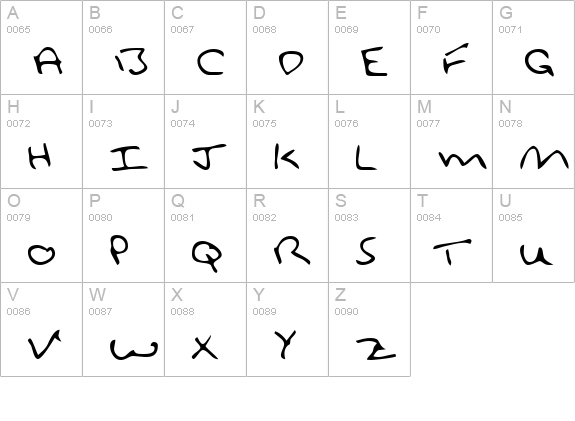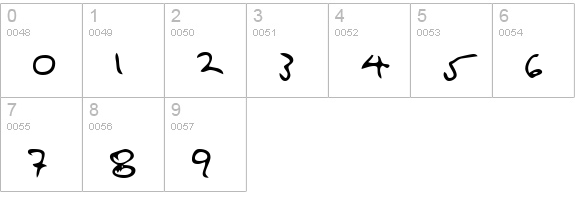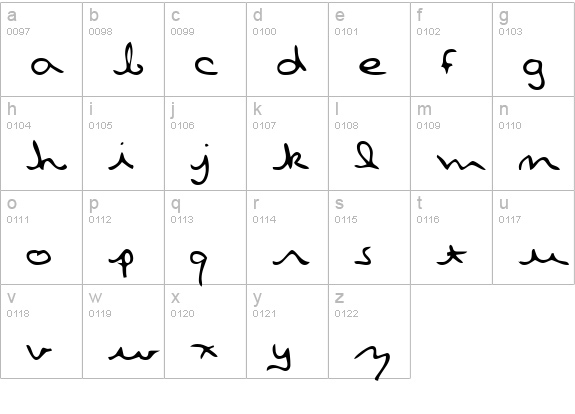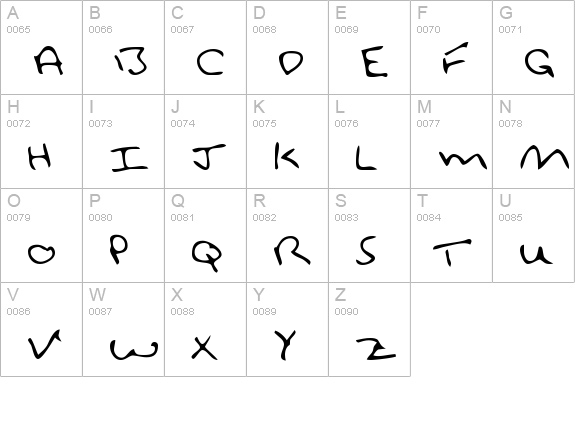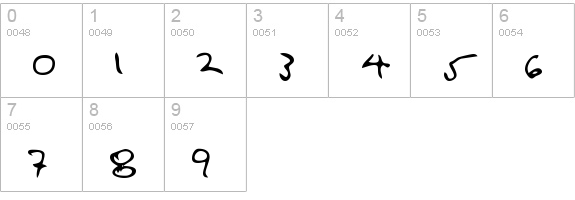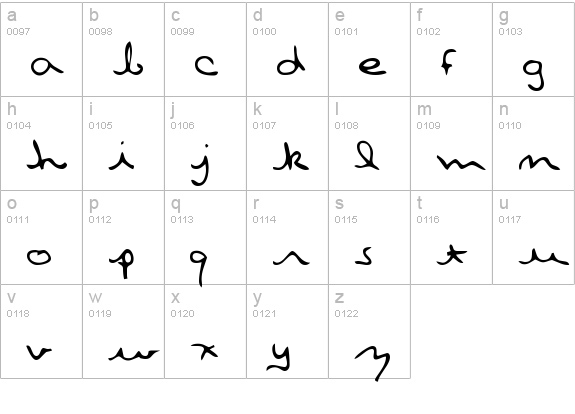
GailsHand Regular is the standard, neutral variant in the GailsHand typeface family \xE2\x80\x94 well suited to general body text, paragraphs, and standard typographic work.
GailsHand Regular font is a beautifully designed typeface that adds a touch of elegance and sophistication to any project. With its delicate curves and smooth lines, this font is perfect for adding a personal and artistic flair to invitations, cards, posters, and more. What sets GailsHand Regular font apart is not just its exquisite design, but also the fact that it is available for free. Yes, you read that right! This stunning font can be downloaded for free at FontsMarket.com, making it accessible to everyone, regardless of budget constraints. Whether you are a professional designer or a hobbyist, GailsHand Regular font will surely become your go-to choice for all your creative endeavors. Its versatility allows it to be used in a wide range of projects, from branding and packaging to social media graphics and website design. The attention to detail in GailsHand Regular font is truly remarkable. Each letter is meticulously crafted to create a harmonious and visually appealing composition. The smooth and flowing strokes give the font a sense of elegance and sophistication, making it a true standout in any design. Furthermore, GailsHand Regular font is highly legible, ensuring that your message is conveyed effectively to your audience. Its clear and crisp appearance makes it suitable for both print and digital media, ensuring that your designs will look stunning in any format. So why wait? Download GailsHand Regular font for free at FontsMarket.com and unlock a world of possibilities for your creative projects. Whether you are designing a wedding invitation, a logo for your business, or simply adding a personal touch to your artwork, this font will undoubtedly elevate your designs to the next level. Don't miss out on this incredible opportunity to access a high-quality font without spending a dime. Get GailsHand Regular font now and let your creativity soar.